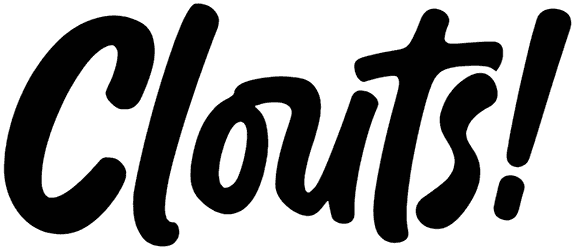
Beach Sunny Font
A bold font like this one can make your words more engaging. Thereby, the final show will become memorable. This script font with its cursive and eye-catching visual is a perfect option for a beach billboard or a café sign. Set it for your coming layout and surprise your followers.